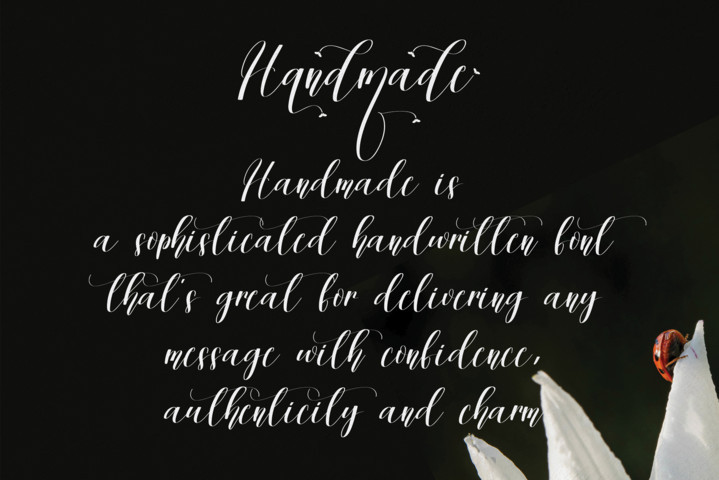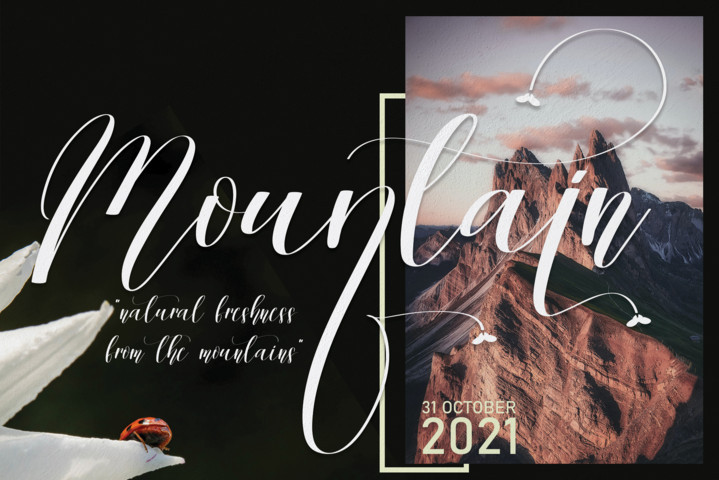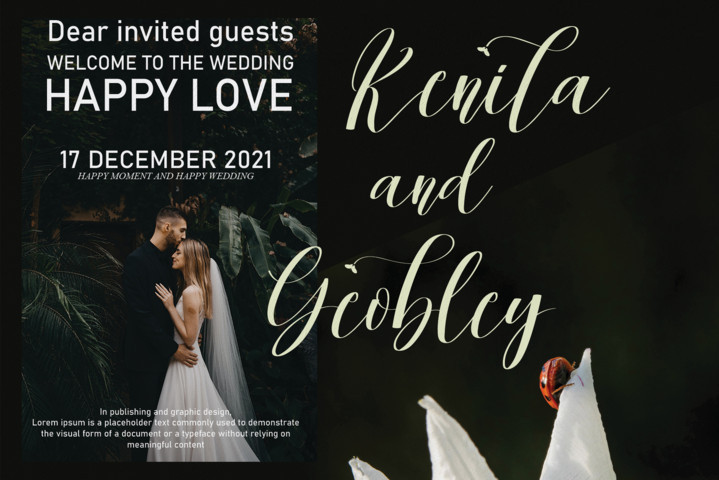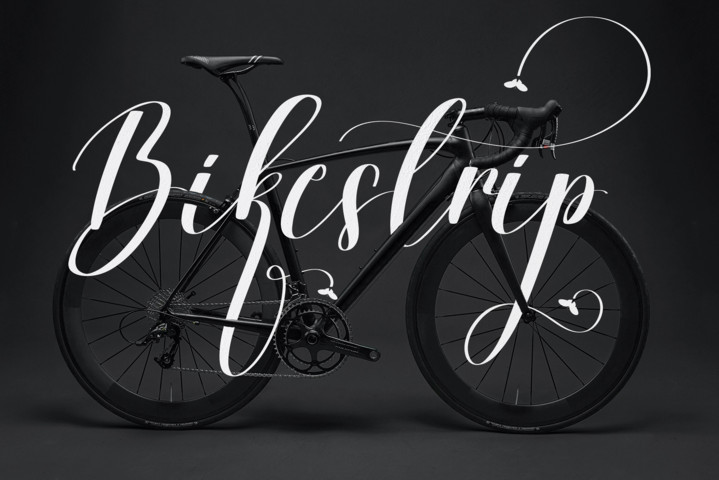
Handmade Script Typeface
It’s a stylish and incredibly elegant script font. It is PUA encoded which means you can access all of the glyphs and swashes with ease!